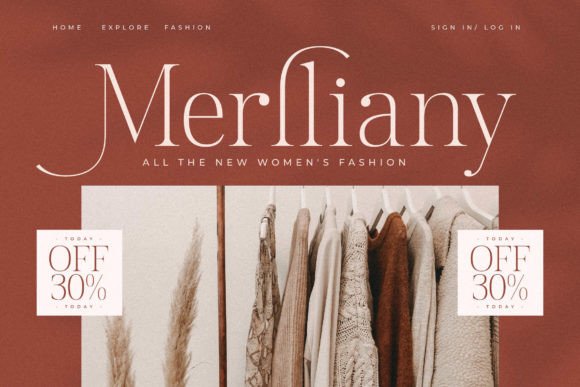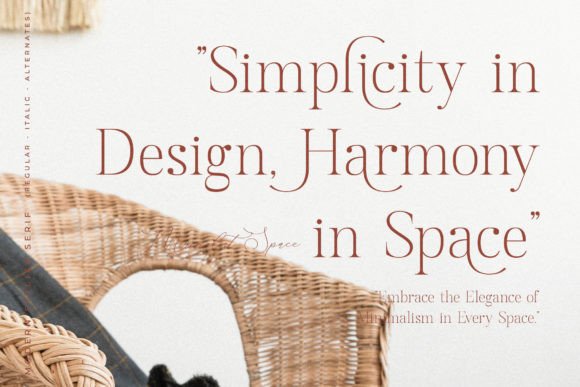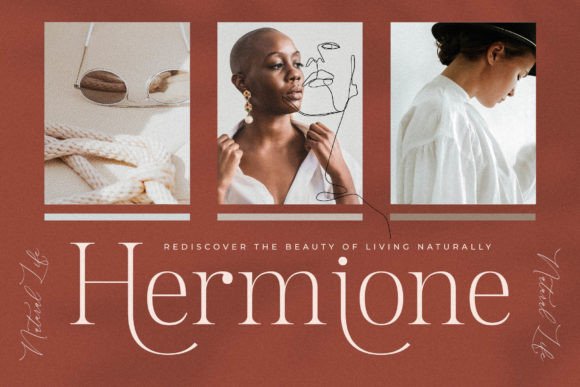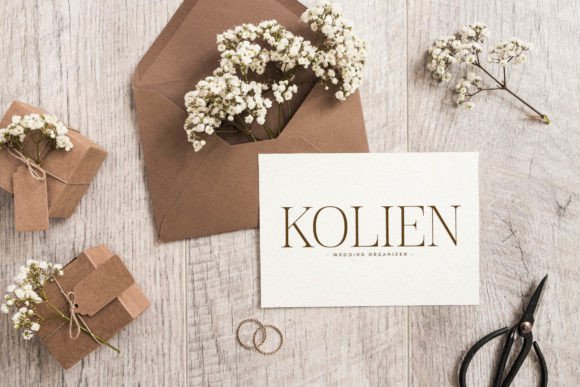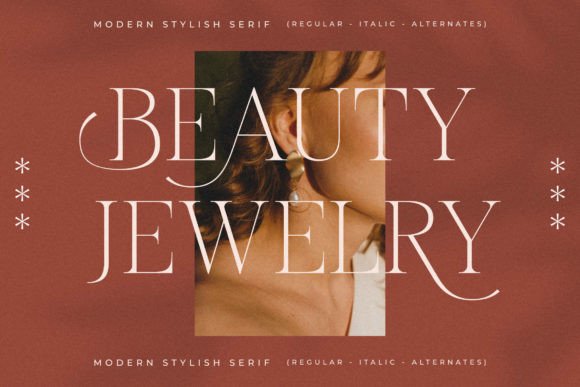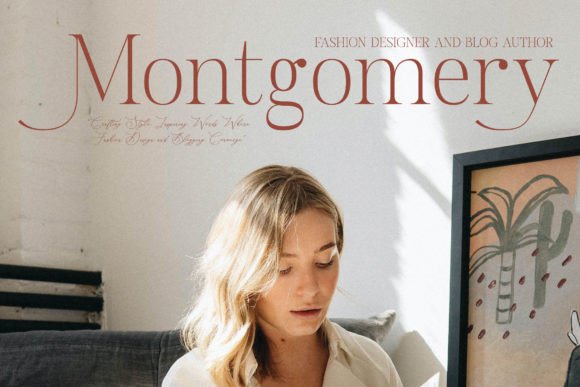
Introducing Allisa Font: The Epitome of Modern Elegance
In the realm of typography, few fonts manage to strike a balance between modernity and classic sophistication. Allisa Font, however, achieves this delicate equilibrium with remarkable finesse. Proudly presented as a serif typeface with a unique style and a modern look, Allisa is poised to revolutionize the way designers approach projects that demand elegance and luxury.
The Allure of Allisa Typeface
Allisa Typeface is not just another addition to the vast universe of fonts; it’s a meticulously crafted design that exudes refinement and poise. Its serif characteristics lend a touch of classic sophistication, while its modern aesthetic ensures it remains contemporary and relevant. This blend of old and new makes Allisa an incredibly versatile font, suitable for a wide array of applications.
Ideal Applications for Allisa Font
The versatility of Allisa Font is one of its most compelling attributes. Here are some of the ideal applications where Allisa truly shines:
• Elegant & Luxury Logos: For brands aiming to establish a high-end presence, Allisa offers the perfect combination of sophistication and modernity.
• Book or Movie Title Design: The font’s classic yet contemporary feel makes it an excellent choice for titles, adding an air of elegance to any publication or cinematic production.
• Fashion Brands: Allisa’s stylish and refined appearance makes it a natural fit for fashion brands looking to communicate luxury and style.
• Magazines: Whether it’s a fashion magazine, a luxury lifestyle publication, or any other type of magazine aiming for a high-end look, Allisa is an excellent choice.
• Clothes and Lettering: For designers working on clothing designs or lettering projects, Allisa offers a unique and stylish aesthetic that can elevate any piece.
• Quotes and More: Beyond these applications, Allisa’s versatility means it can be used for a myriad of other projects where a touch of elegance is desired.
Designing with Allisa: Tips and Tricks
To truly leverage the potential of Allisa Font, designers should consider the following tips:
• Pairing: Experiment with pairing Allisa with sans-serif fonts for a modern contrast or with other serif fonts for a layered, textured look.
• Color Choices: While Allisa looks stunning in traditional black and white, don’t be afraid to experiment with colors that reflect the brand’s personality or the project’s theme.
• Spacing: Pay attention to letter and line spacing to ensure that the elegance of the font is not compromised. Allisa’s beauty shines brightest when given room to breathe.
The Craft Behind Allisa
The creation of Allisa Font is a testament to the art of typography. Crafted with precision and a deep understanding of design principles, Allisa stands as a beacon of modern elegance. Its design ensures that it is not only aesthetically pleasing but also highly legible, making it a practical choice for a wide range of applications.
Allisa Font represents a significant addition to the world of typography. Its unique blend of modernity and classic elegance, coupled with its versatility, makes it an indispensable tool for designers. Whether you’re working on a luxury brand, a fashion magazine, or any project that demands a touch of sophistication, Allisa is sure to exceed your expectations. Embrace the elegance and modernity of Allisa Font in your next project and experience the difference that a truly exceptional typeface can make.